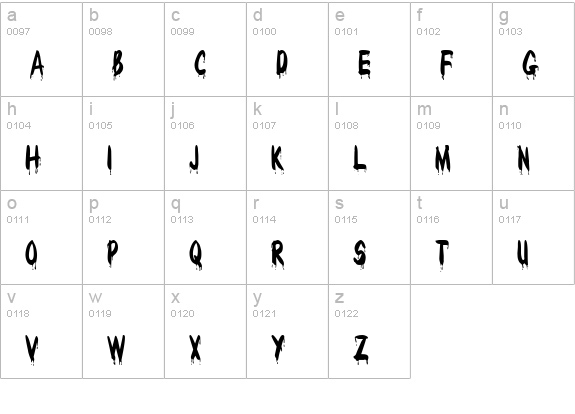
DripsCondensed Normal Font Details
DripsCondensed Normal is the standard, neutral variant in the DripsCondensed typeface family \xE2\x80\x94 well suited to general body text, paragraphs, and standard typographic work.
DripsCondensed Normal font is a unique and eye-catching typeface that will add a touch of creativity to any design project. Its condensed style makes it versatile and perfect for headlines, posters, and branding materials. The dripping effect gives it a bold and edgy look, making it stand out from other fonts. Best of all, DripsCondensed Normal font is completely free to download at FontsMarket.com. Take advantage of this amazing offer and enhance your designs with this one-of-a-kind font today!